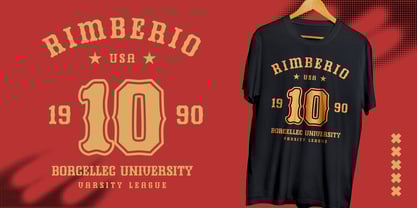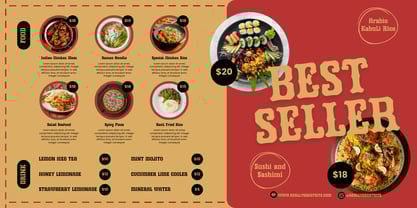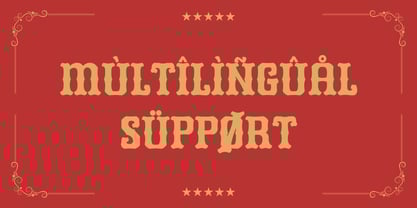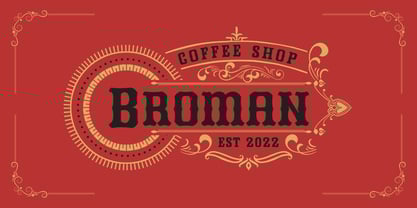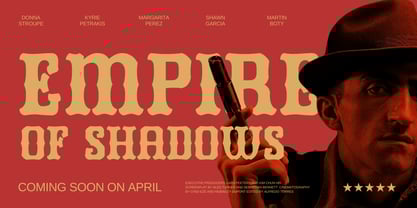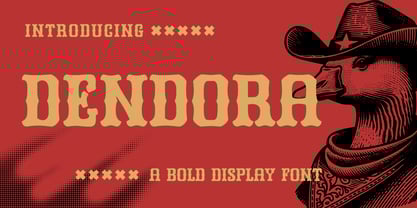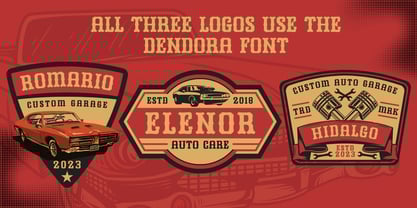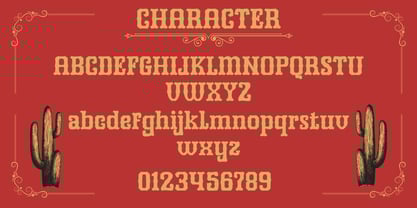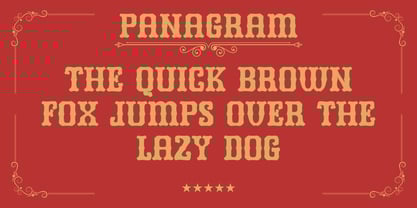
Dendora
by Beary
The Dendora Font Family was designed by Dian Haniffan Hadi and published by Beary. Dendora contains 1 styles. More about this family
Dendora is a bold display font that draws inspiration from 19th-century styles and the captivating aesthetics of vintage western posters. Each character exudes strength and individuality, creating a robust and authentic look. **Key Features:** - **Complete Uppercase and Lowercase Letters:** A full range of uppercase and lowercase characters, each crafted with unique yet harmonious details. - **Full Set of Numbers and Symbols:** Including numbers 0-9 and a variety of punctuation marks, currency symbols, and special characters, this font is highly versatile for diverse design applications. - **Special Characters and Diacritics:** Dendora also offers a vast array of accented characters and unique punctuation, accommodating multiple languages. **Perfect for:** Dendora is the ideal choice for projects that demand a vintage, bold, and characterful aesthetic, including logo and branding design, movie or event posters, product packaging, liquor or artisanal product labels, magazine or book titles, T-shirt designs, and marketing materials with a retro flair. With its striking and timeless appearance, Dendora ensures your designs stand out and leave a lasting impression. This font beautifully merges classic elegance with modern style, making it a must-have for designers seeking to elevate their work.
Designers: Dian Haniffan Hadi
Foundry: Beary